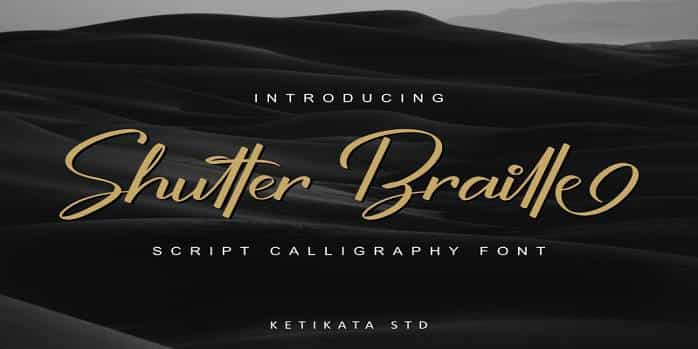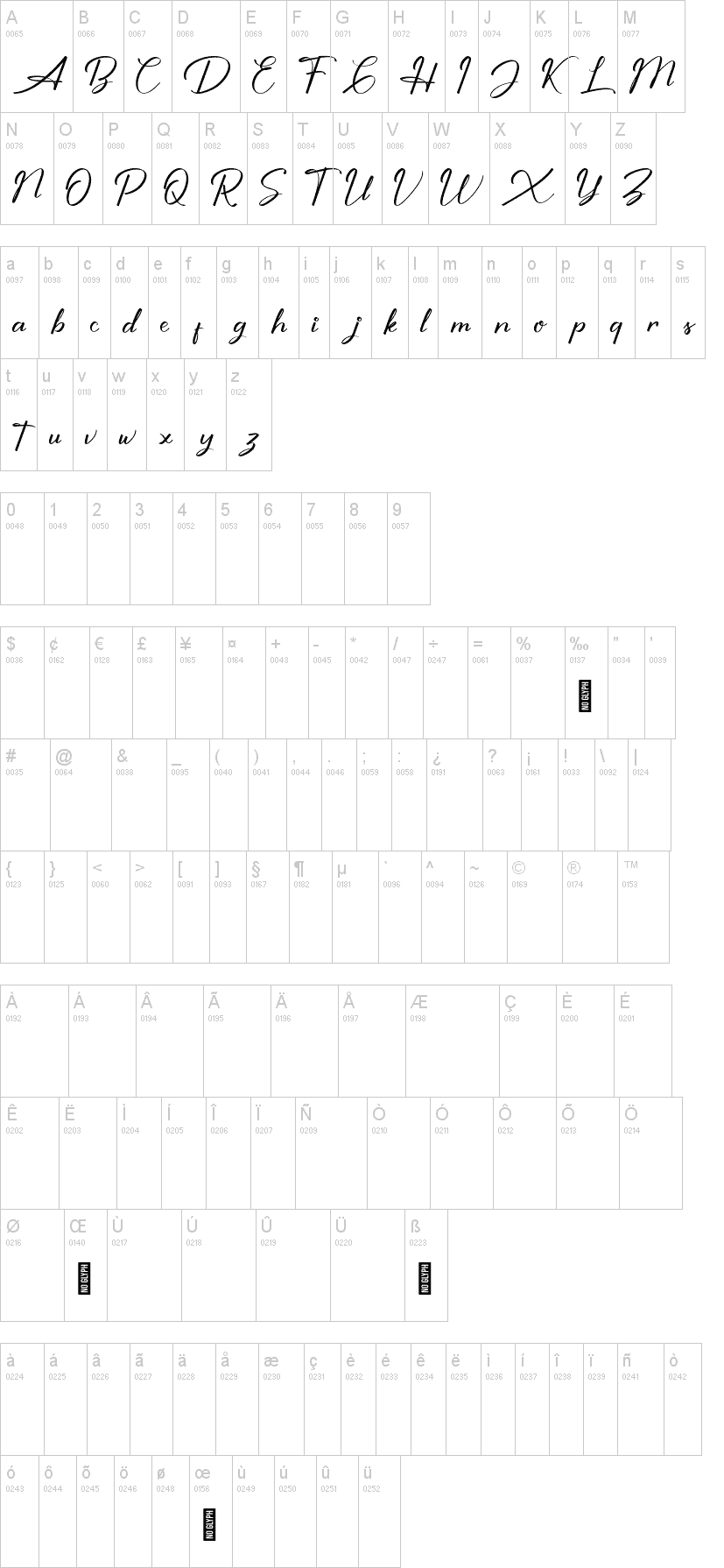
Shutter Braille is a top notch styled Calligraphy font which was designed by ketikata std and it is available for personal use. The free version offers uppercase and lowercase letters and some special characters as well.